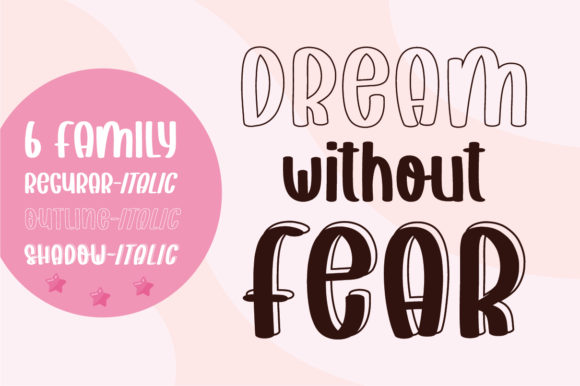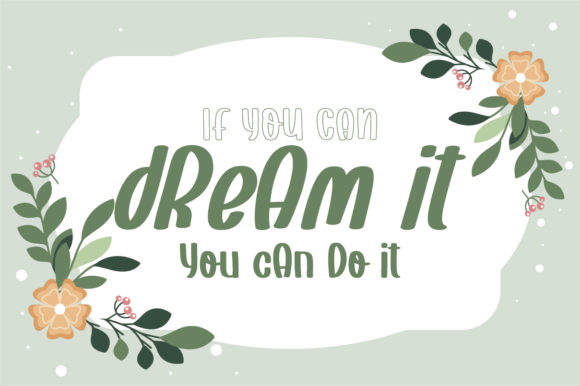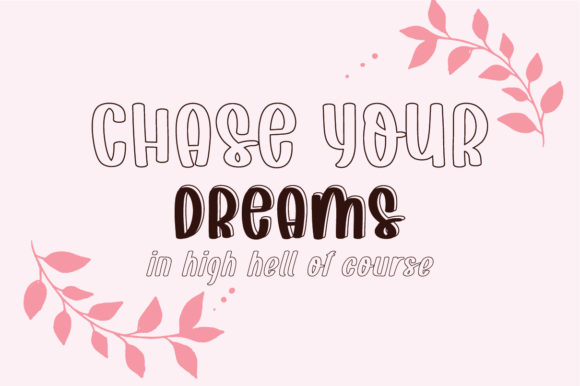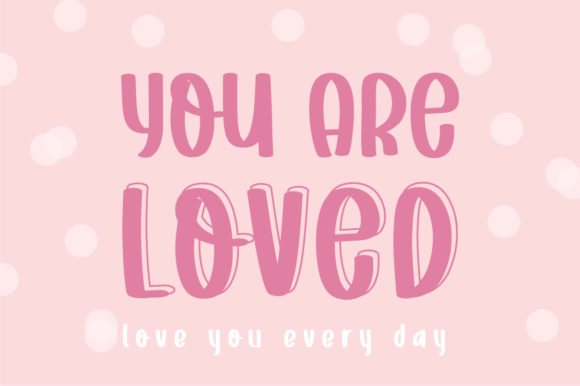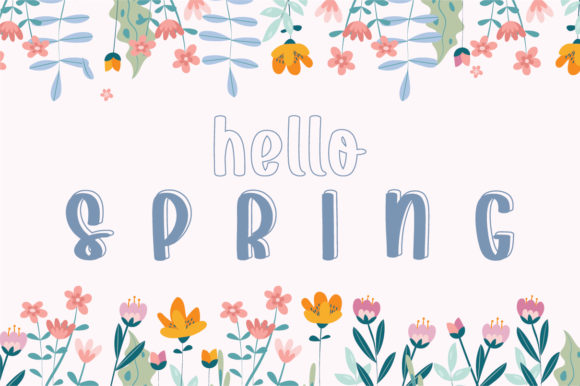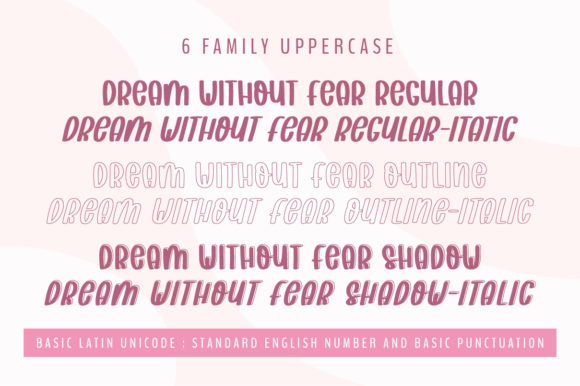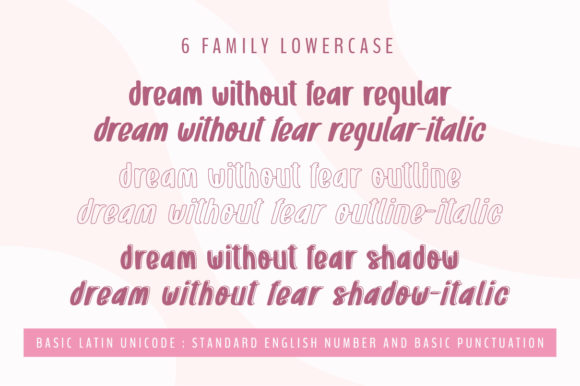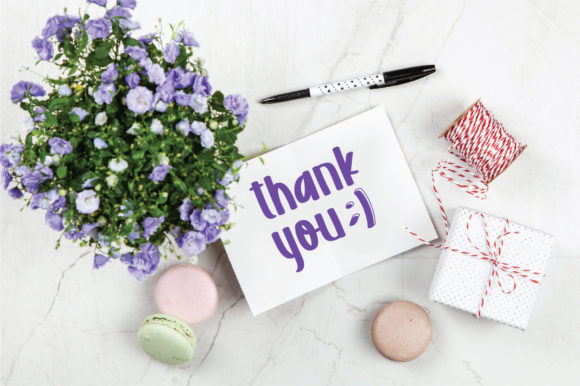
Dream Without Fear Font
About Dream Without Fear Font
Dream Without Fear is a truly whimsical and playful script with a contemporary vibe. It will look great on a wide range of design ideas!